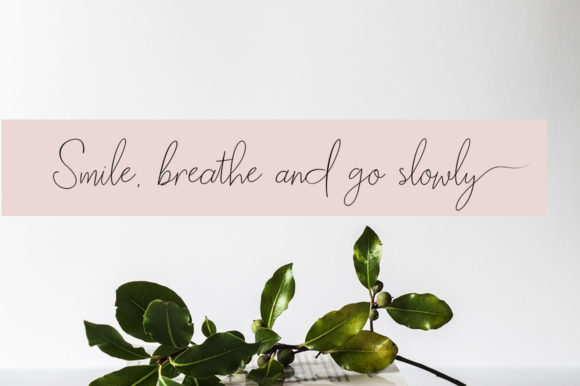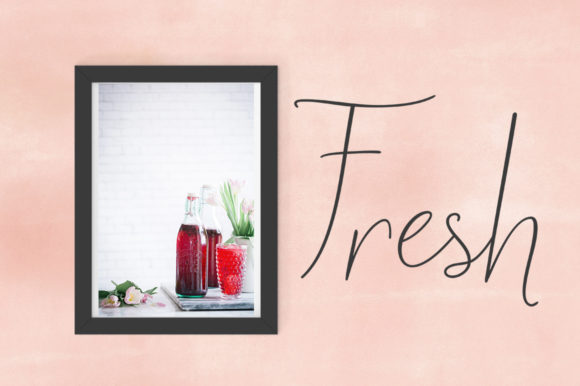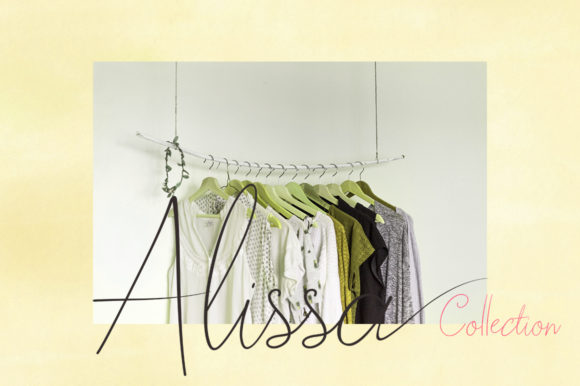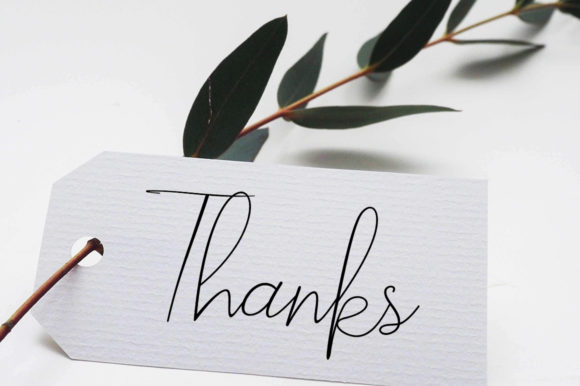
Introducing the Birthday Script Font: A Modern Handwritten Delight
Are you on the hunt for a font that’s perfect for your next design project? Look no further than the Birthday Script Font! This modern handwritten script is easy to use, boasts great readability, and is ideal for branding designs. In this article, we’ll dive into the world of the Birthday Script Font, exploring its features, benefits, and uses.
What is the Birthday Script Font?
The Birthday Script Font is a contemporary handwritten script that’s designed to make your designs stand out. With its fluid strokes and elegant lettering, this font is perfect for creating beautiful and eye-catching text. Whether you’re working on a logo, brochure, or social media graphics, the Birthday Script Font is sure to impress.
Key Features of the Birthday Script Font
- Modern Handwritten Style: The Birthday Script Font features a modern handwritten style that’s perfect for designers and crafters looking for a unique and creative font.
- Ease of Use: This font is incredibly easy to use, making it perfect for designers of all skill levels.
- Great Readability: The Birthday Script Font boasts great readability, ensuring that your text is clear and easy to read.
- Perfect for Branding Designs: With its elegant lettering and modern style, the Birthday Script Font is ideal for branding designs, including logos, business cards, and more.
Benefits of Using the Birthday Script Font
So, why should you choose the Birthday Script Font for your next design project? Here are just a few benefits of using this amazing font:
- Adds a Personal Touch: The Birthday Script Font adds a personal touch to your designs, making them feel more approachable and friendly.
- Versatile: This font is incredibly versatile, making it perfect for a wide range of design projects, from logos and branding to social media graphics and more.
- Easy to Pair with Other Fonts: The Birthday Script Font is easy to pair with other fonts, allowing you to create stunning font combinations that elevate your designs.
Uses for the Birthday Script Font
The Birthday Script Font is perfect for a wide range of design projects, including:
- Branding and Logos: Use the Birthday Script Font to create stunning logos and branding materials that make your business stand out.
- Social Media Graphics: Add a touch of elegance to your social media graphics with the Birthday Script Font.
- Invitations and Announcements: This font is perfect for creating beautiful invitations and announcements for special occasions.
- Packaging Design: Use the Birthday Script Font to add a personal touch to your packaging design.
Tips for Using the Birthday Script Font
Here are a few tips for getting the most out of the Birthday Script Font:
- Experiment with Font Sizes: Don’t be afraid to experiment with different font sizes to find the perfect fit for your design.
- Pair with Other Fonts: Try pairing the Birthday Script Font with other fonts to create stunning font combinations.
- Use for Headings and Titles: This font is perfect for headings and titles, adding a touch of elegance to your designs.
| Font Name | Birthday Script Font |
| Author | Stripes Studio |
In conclusion, the Birthday Script Font is a modern handwritten script that’s perfect for designers and crafters looking for a unique and creative font. With its ease of use, great readability, and versatility, this font is ideal for a wide range of design projects. Whether you’re working on branding designs, social media graphics, or packaging design, the Birthday Script Font is sure to impress. So why wait? Give this amazing font a try today and take your designs to the next level!